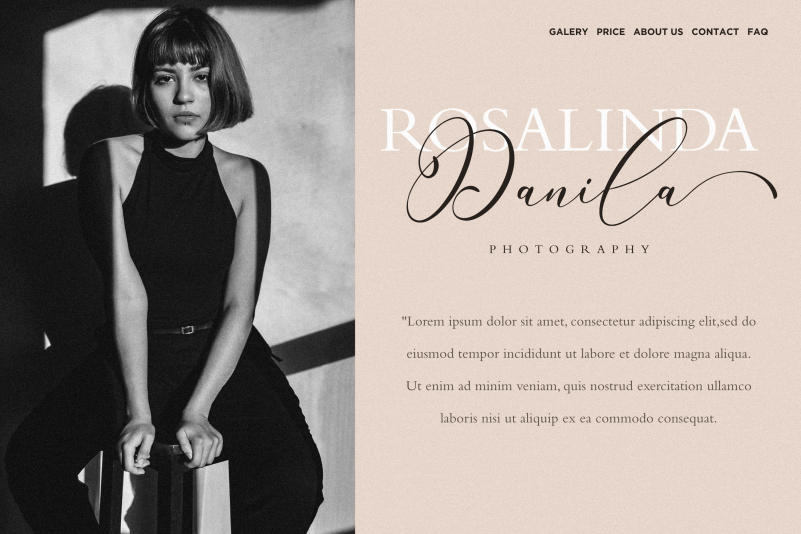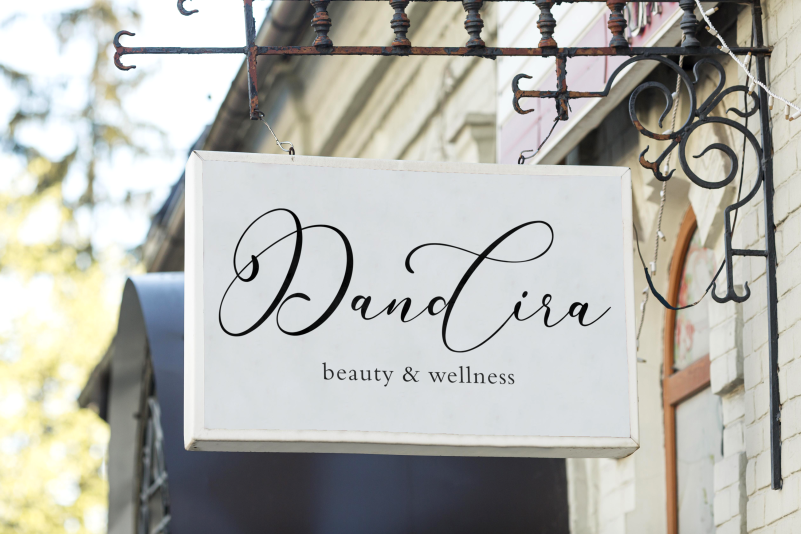
Rintica Typeface
Rintica Typeface is a lovely script font with splendid ligatures, swashes, and alternates. Rintica is perfect for product packaging, branding project, magazines, social media, weddings, or just used to express words above the background.